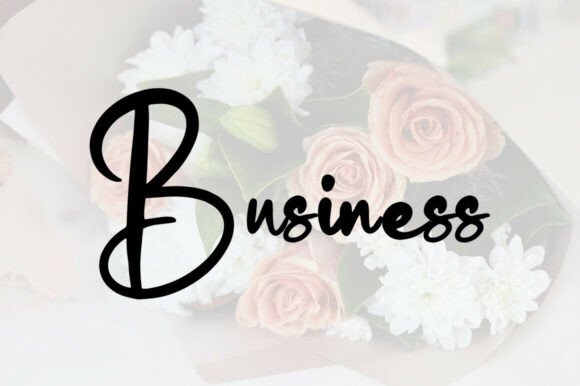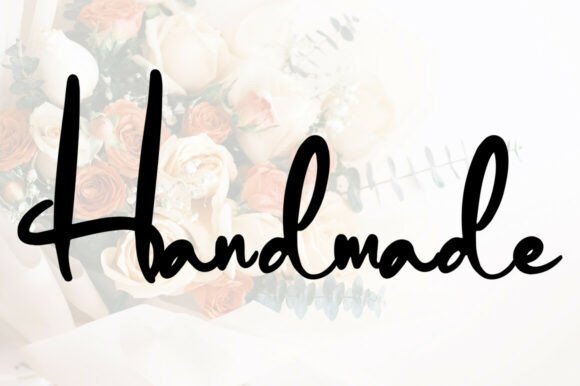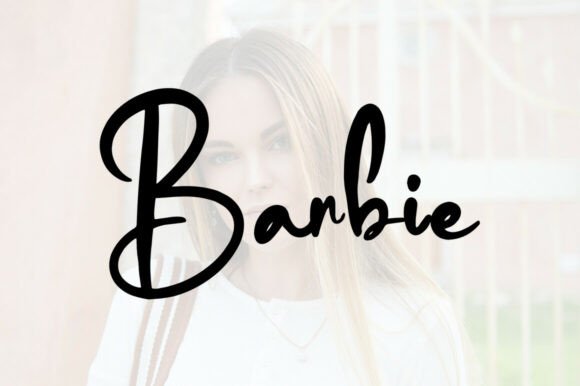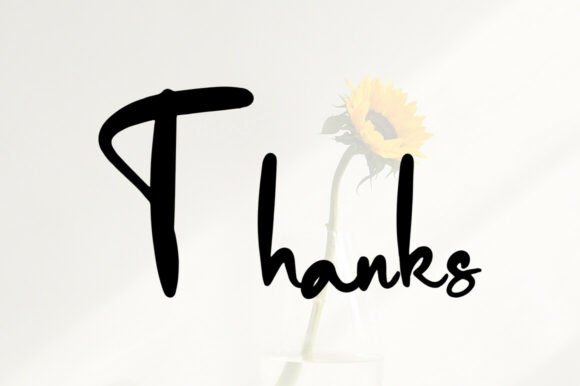
The Bouncing Font: A Sweet and Joyful Addition to Your Design Toolkit
Have you ever been working on a design project, and suddenly, you’re stuck on finding the perfect font? I recall a particularly frustrating experience while designing a wedding invitation for a friend. The design was almost complete, but the font just wasn’t right. It was too formal, too boring, or just didn’t convey the joy and love that the couple embodied. That’s when I discovered the Bouncing font, and it completely transformed my design.
A Personal Review: What I Love About Bouncing
The Bouncing font is a dainty and flowing handwritten font that adds a sweet and joyful touch to any design. Here are some things I love about it:
- ✨ Sweet and joyful personality: Bouncing is perfect for designs that require a romantic and personalized touch.
- ✅ Elegant and flowing script: The font’s cursive style is beautiful and sophisticated, making it ideal for wedding invitations, cards, and other special occasions.
- 💕 Versatile and adaptable: Bouncing can be used for a variety of design projects, from digital graphics to print materials.
While Bouncing is an excellent font, there are a few minor quirks to be aware of:
- 🤔 Limited use for body text: Due to its script nature, Bouncing may not be the best choice for lengthy body text. It’s better suited for headings, titles, or short paragraphs.
- ⚠️ Requires attention to spacing: As with any script font, it’s essential to adjust the spacing to ensure that the text flows smoothly and doesn’t appear too cramped.
Bouncing font comes with a range of OpenType features and glyphs that can enhance your design. Here are some tips on how to access and use them:
- OpenType features: These features allow you to customize the font’s appearance, such as enabling or disabling ligatures, stylistic alternates, and swashes.
- Glyphs: Glyphs are special characters that can add more creativity to your design. You can access glyphs by using the glyph panel in Adobe Photoshop or Illustrator.
The Designer Inspiration Behind Bouncing
The Bouncing font was designed with the intention of creating a sweet and joyful script font that would add a touch of romance and elegance to any design. The designer’s inspiration came from traditional calligraphy and handwriting, with a focus on creating a font that would be both beautiful and easy to read.
| Font Name | Bouncing Font |
| Author | Daily Design |
Q: What type of designs is Bouncing best suited for?
A: Bouncing is ideal for designs that require a romantic and personalized touch, such as wedding invitations, cards, and other special occasions.
Q: Is Bouncing a difficult font to read?
A: No, Bouncing is a clear and readable font, making it suitable for designs that require a touch of elegance and sophistication.